The Evolution of Script Fonts: From Calligraphy to Digital Design
Exploring the Journey of Script Fonts from Pen to Pixel
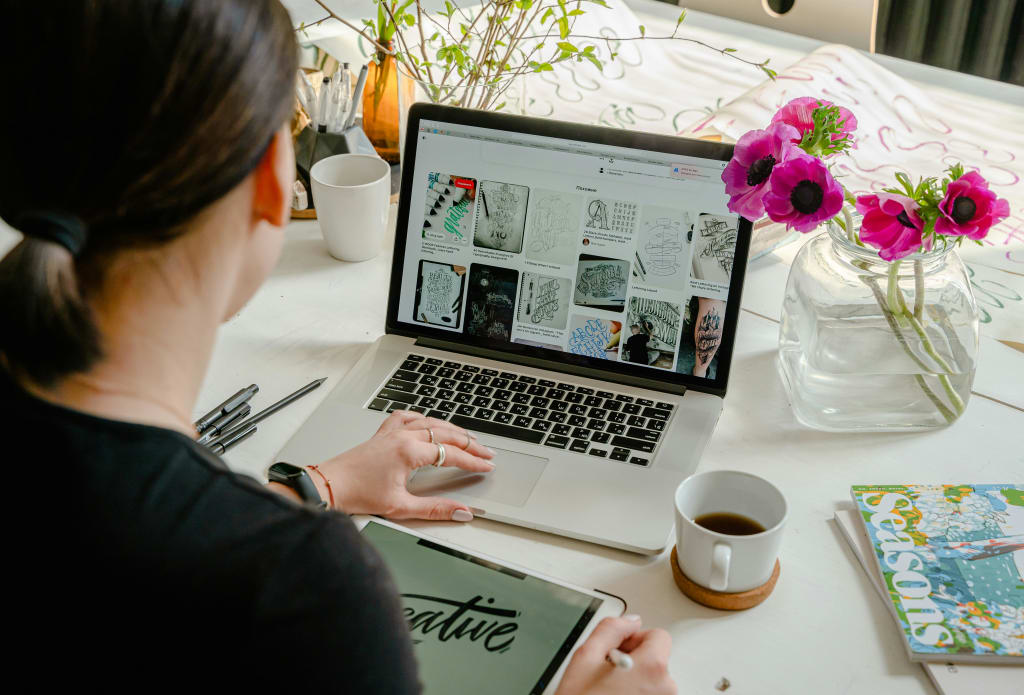
Setting the Stage for Script Fonts
Imagine receiving a beautifully crafted wedding invitation with elegant, flowing script or picking up a classic novel adorned with a timeless, ornate title. These examples leverage the distinctive allure of script fonts—typographies that mimic the fluidity and expressiveness of human handwriting. For graphic designers, artists, writers, and bloggers, understanding the evolution of script fonts from their calligraphic origins to their modern digital implementations can transform and elevate creative projects. This article will journey through the rich history, the transformative ages, and the digital renaissance of script fonts, offering insights and inspiration for any creative professional.
Historical Roots of Script Fonts in Calligraphy
Introduction to Calligraphy
Calligraphy, the art of beautiful handwriting, spans several cultures and epochs, influencing the development of script fonts. From the ornate manuscripts of medieval Europe to the graceful brush strokes of East Asian characters and the flowing lines of Arabic script, each tradition has contributed uniquely to what we recognize today in script fonts.
Transition from Calligraphic Art to Typeface Design
With the advent of the printing press, the demand to replicate hand-lettered styles did not diminish. Early typographers designed typefaces that mimicked the style of hand-written texts, which led to the creation of early script typefaces. For instance, during the Renaissance, the Chancery hand—a form of cursive developed for legal and diplomatic documents—inspired the Chancery typefaces, while in 19th-century America, the Spencerian script influenced the creation of similarly styled typefaces, notable for their elegance and readability.
Key Takeaway for Readers: A deeper appreciation for script fonts can be cultivated by understanding their historical roots. This knowledge not only enhances a designer's ability to use script fonts more effectively but also inspires innovative applications in various creative fields.
Script Fonts’ Golden Age and Evolution
20th Century Revival
The early to mid-20th century witnessed a script font revival through movements like Art Nouveau and Art Deco, which embraced ornamental and aesthetic designs in typography. This era brought about iconic script fonts such as Brush Script, which mimicked the strokes of a paintbrush and became synonymous with advertising and promotional materials.
Mid-20th Century to Modern Times
As advertising and branding evolved, so too did the design and usage of script fonts. The latter half of the 20th century saw the rise of casual script fonts, which offered a less formal style suitable for modern tastes, encapsulated by fonts like Mistral and Lucida Handwriting. These fonts featured loose and easy strokes, capturing the spontaneity of hand-written notes.
Visuals and Examples: Recognizable brands have utilized script fonts effectively; Coca-Cola’s logo, for instance, uses a custom script font that has become iconic.
Practical Insights: For designers today, the historical context of script fonts can guide the emotional and aesthetic impact of their work, choosing or crafting script fonts that truly speak to an audience's needs and expectations.
Script Fonts in the Digital Age
Technological Advances in Font Design
The digital revolution transformed script fonts through advanced design software like Adobe Illustrator and FontForge, allowing designers to experiment with and refine the aesthetics of script typography. These tools offer the ability to tweak every curve and flourish, creating intricate and appealing script fonts that maintain readability across digital platforms.
Popular Script Fonts Today
Modern script fonts such as Lobster and Pacifico illustrate the successful adaptation of script styles to digital media, blending readability with personality. These fonts are frequently used in web design, digital marketing, and multimedia advertising, proving that script fonts continue to be a vital tool for engaging audiences.
Tips for Using Script Fonts Effectively: When incorporating script fonts into digital designs, consider their legibility, especially on smaller screens. Pairing script fonts with simpler, sans-serif fonts can enhance readability while maintaining stylistic flair.
Future Trends and Innovations in Script Fonts
Emerging Trends
Current trends in script font design show a fascinating blend of historical influences with contemporary aesthetics. Designers are increasingly experimenting with hybrid fonts that combine script with serif or sans-serif elements, offering versatility and new visual narratives.
Innovations on the Horizon
Looking forward, the integration of AI and machine learning in type design could further revolutionize script fonts. These technologies promise new ways of creating adaptable and responsive fonts that could change dynamically based on user interaction or context.